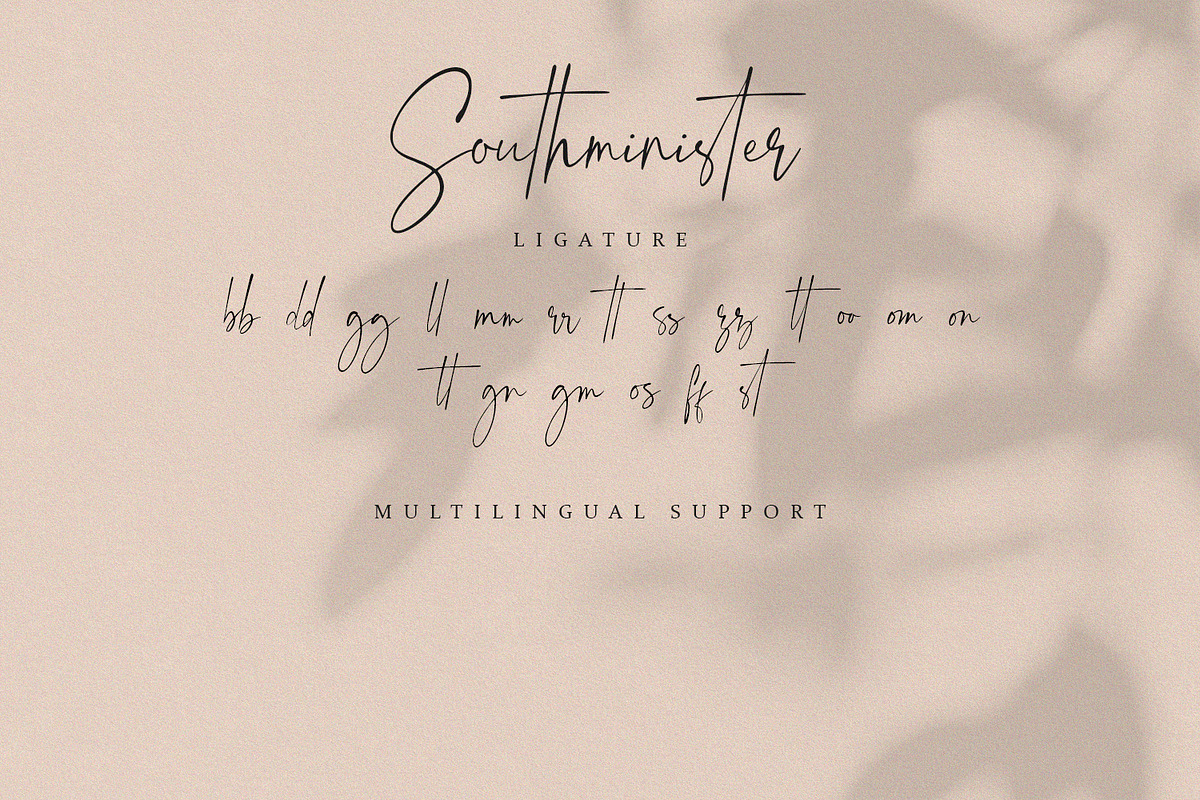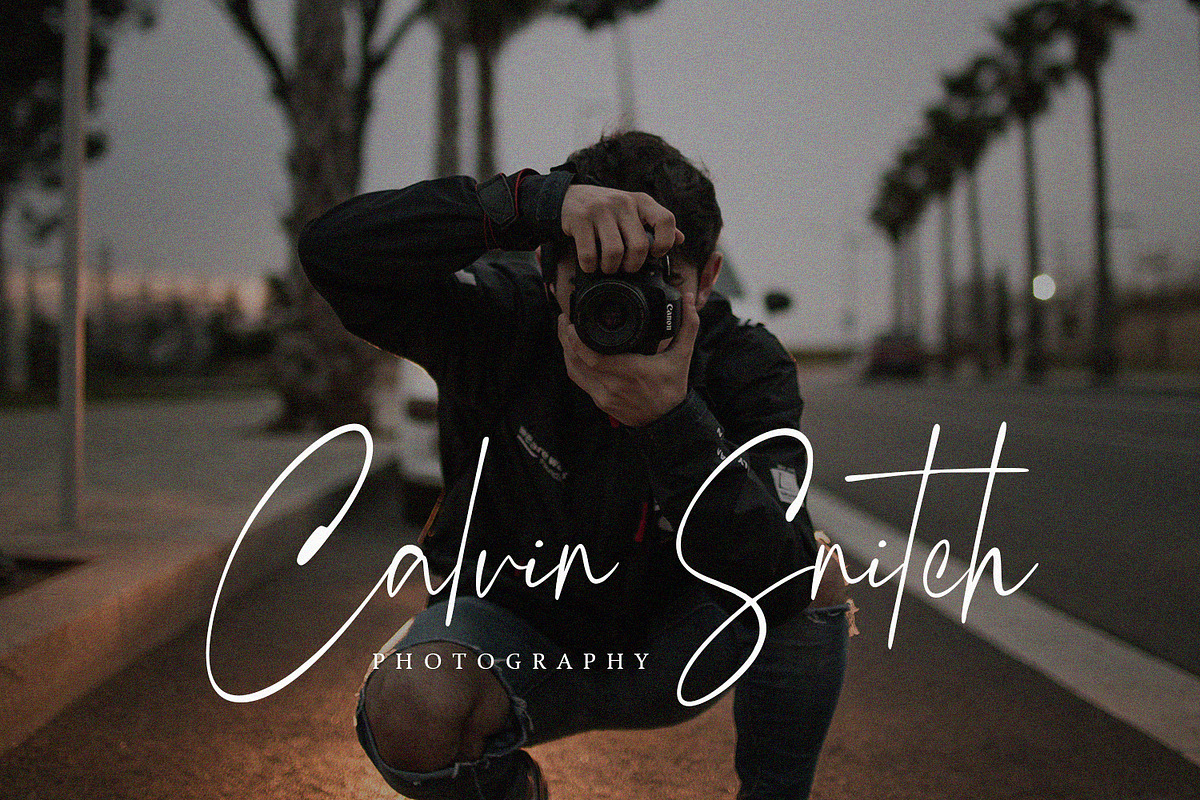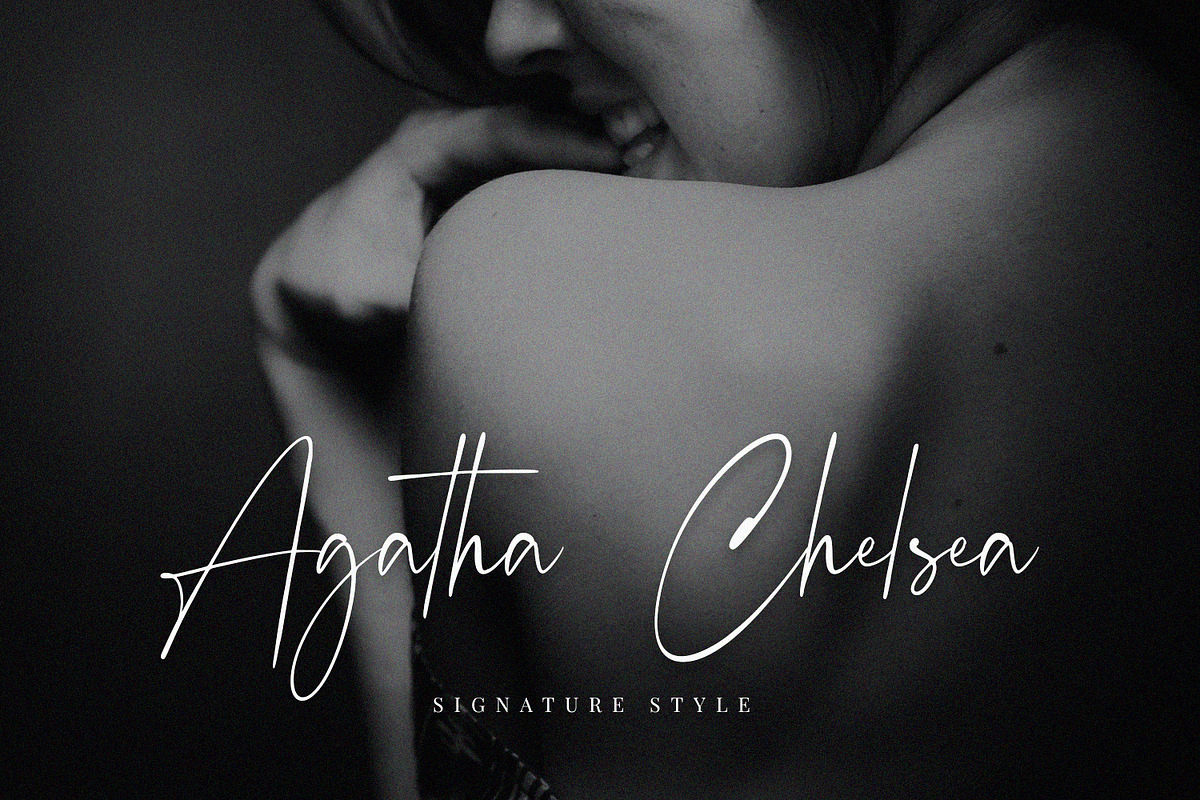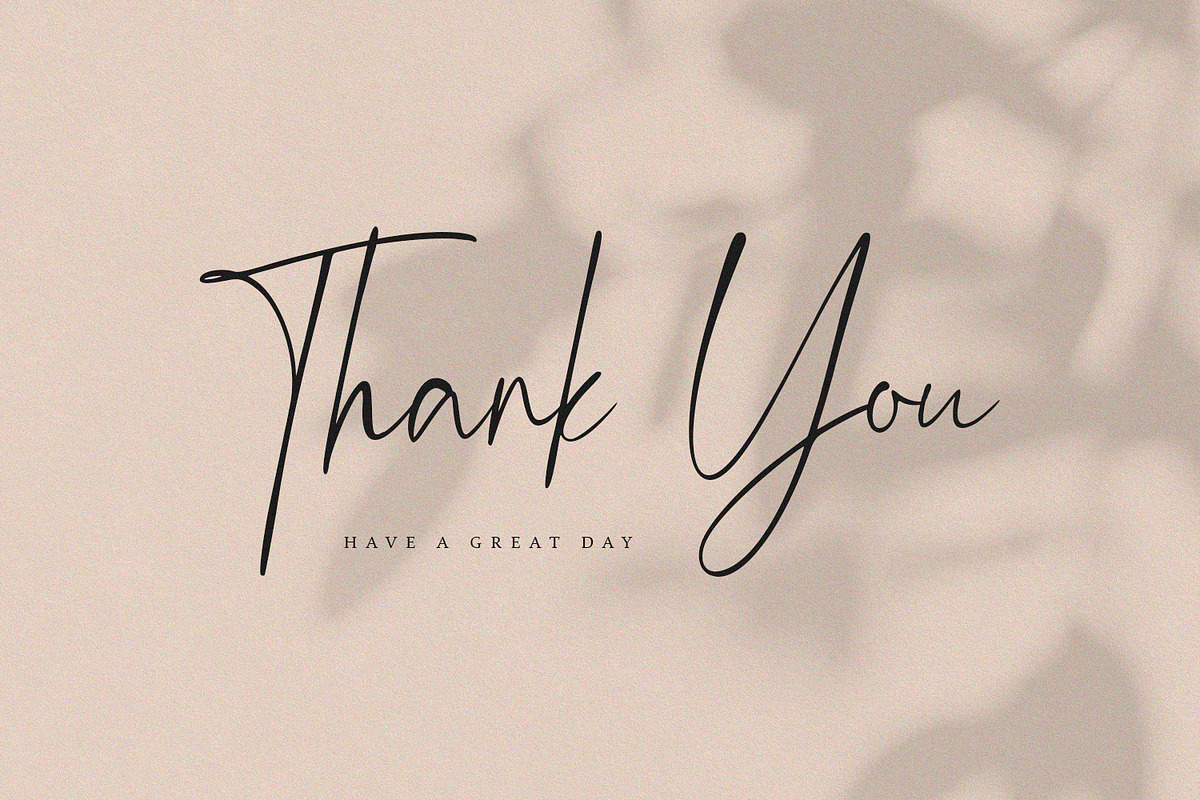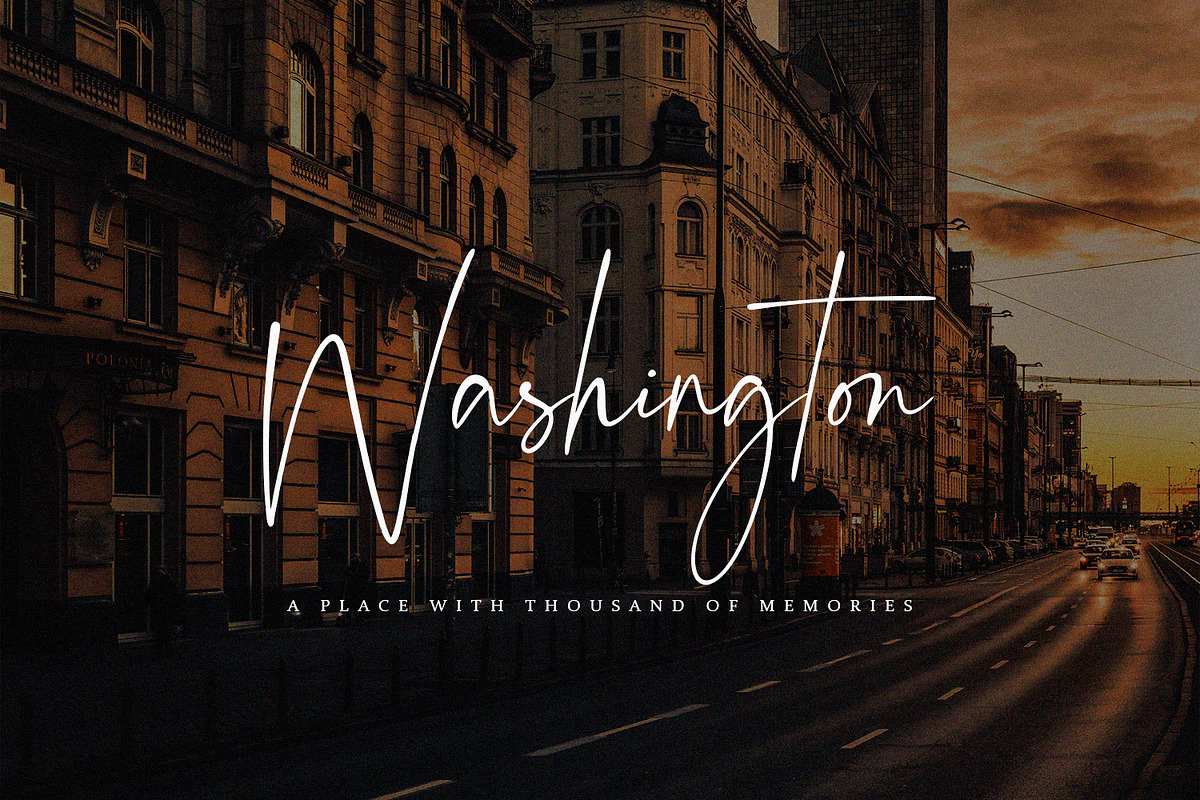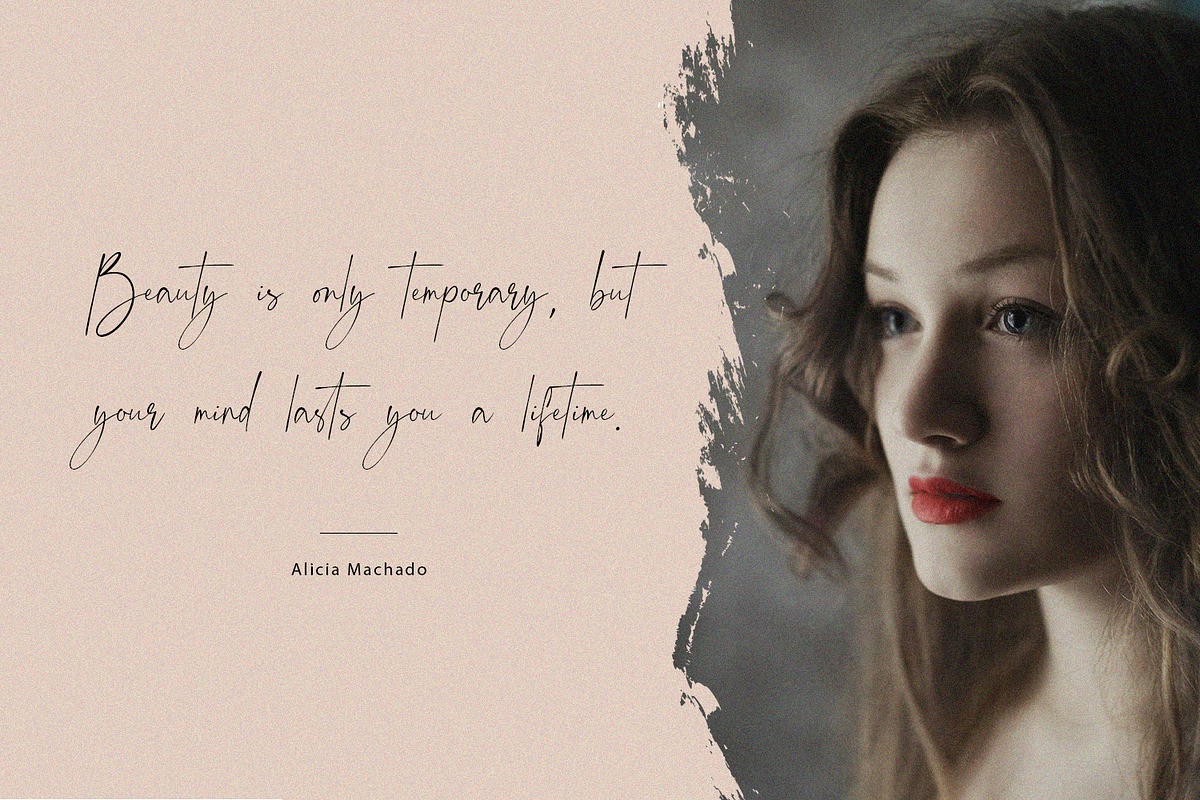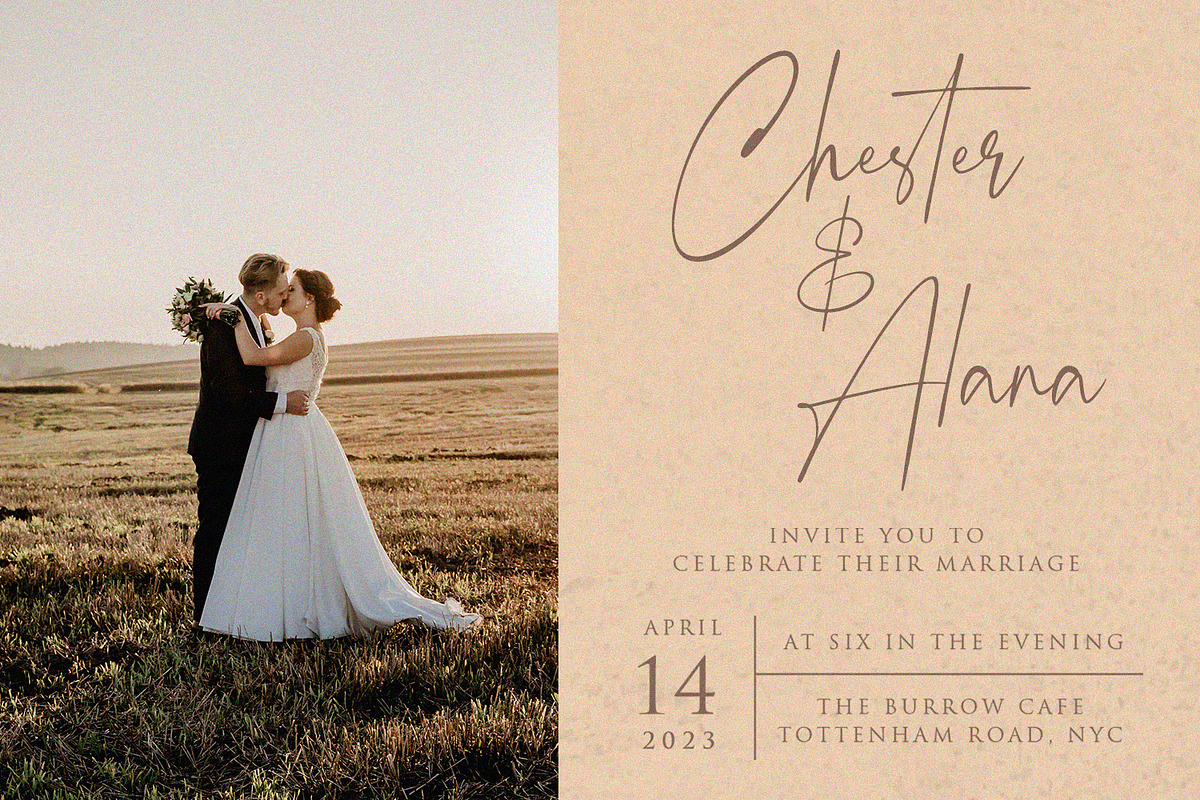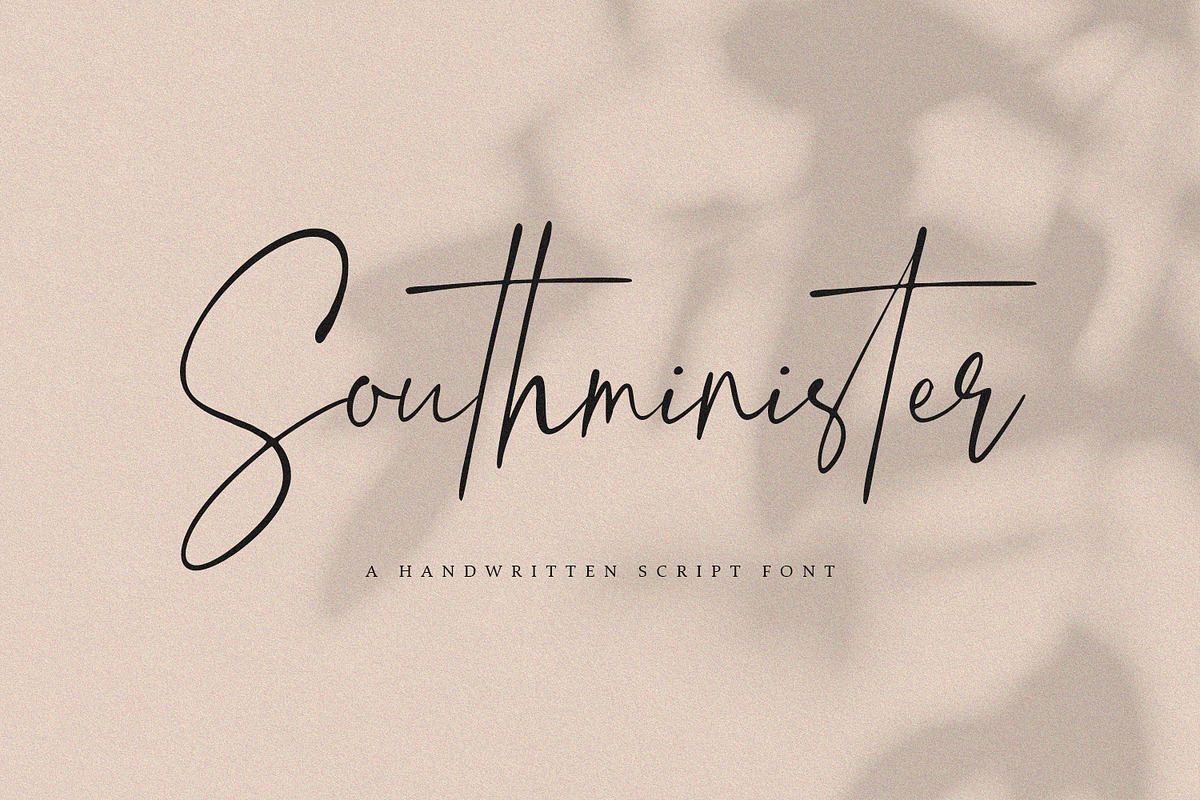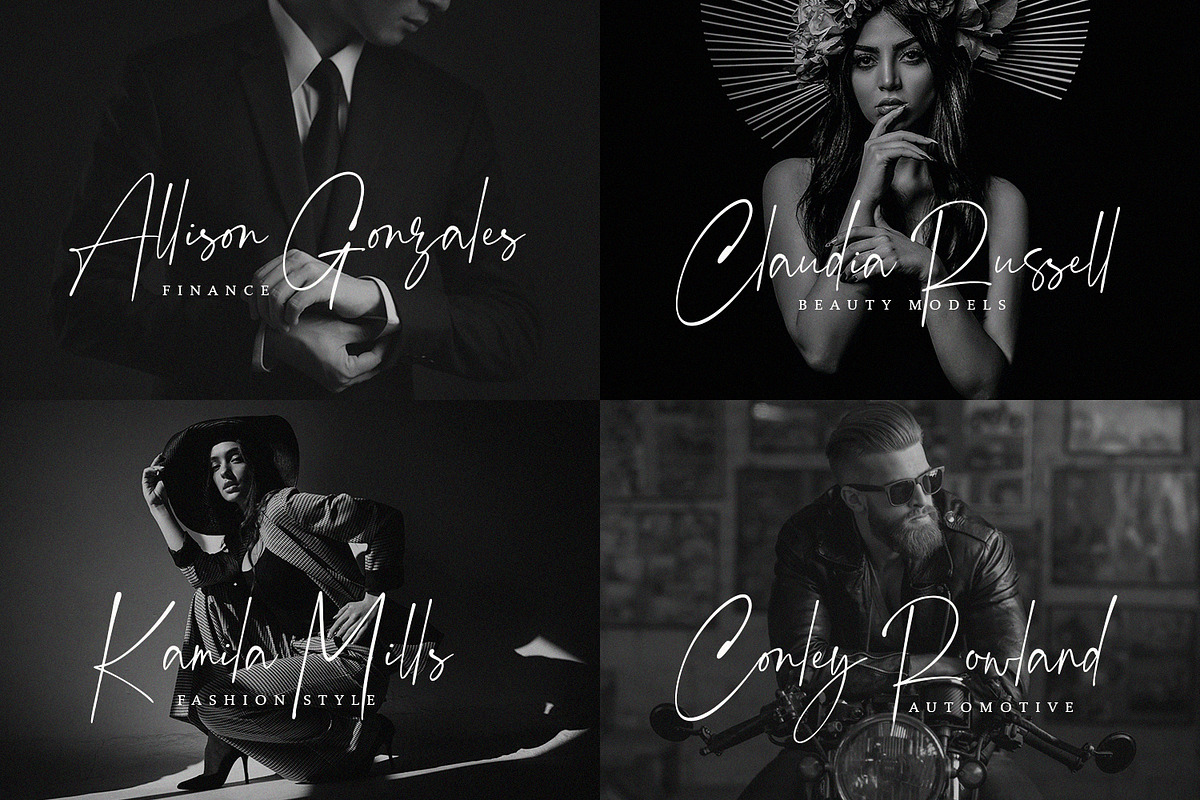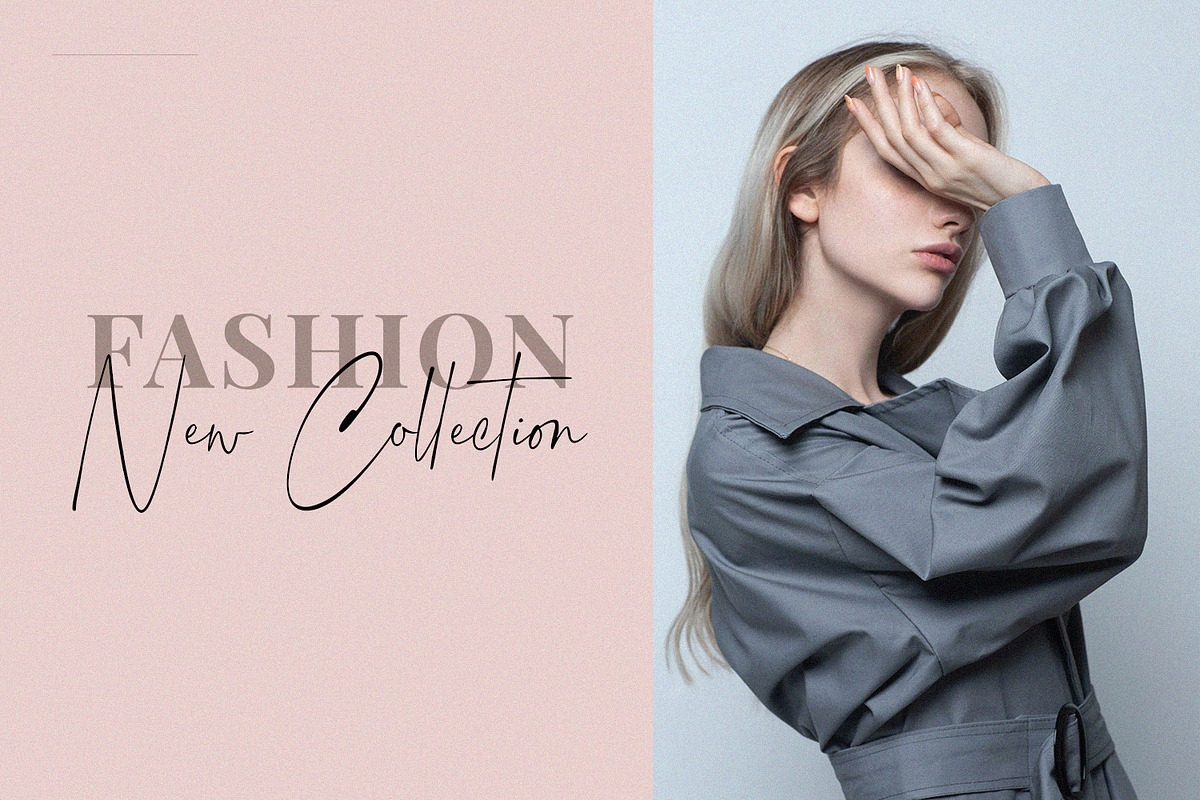
Southminister - Handwritten Script
Southminister is a stylish handwritten script font with authentic and casual feels. It will be perfectly used for Branding, Logo Design, Lettering, Logotype, Clothing, Poster, magazine, packaging, posters, shopping bags, t-shirts, book covers, photography, special events and other design project.